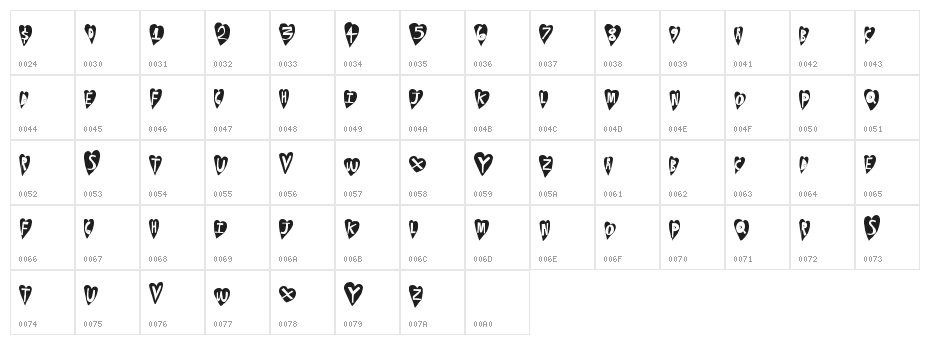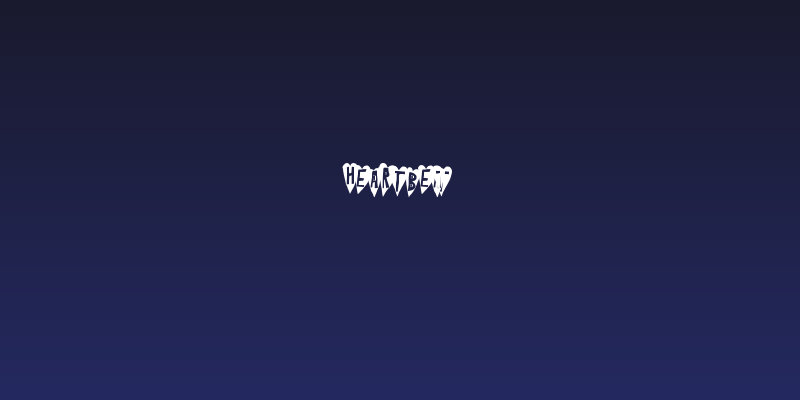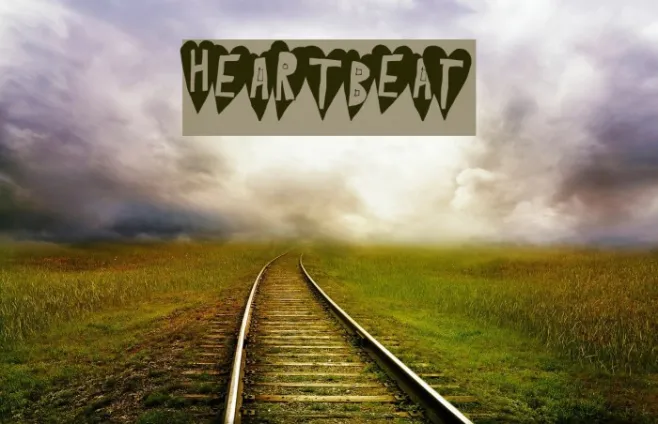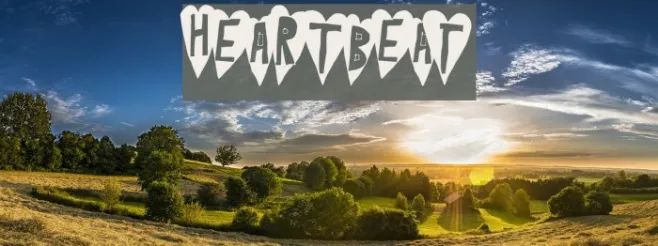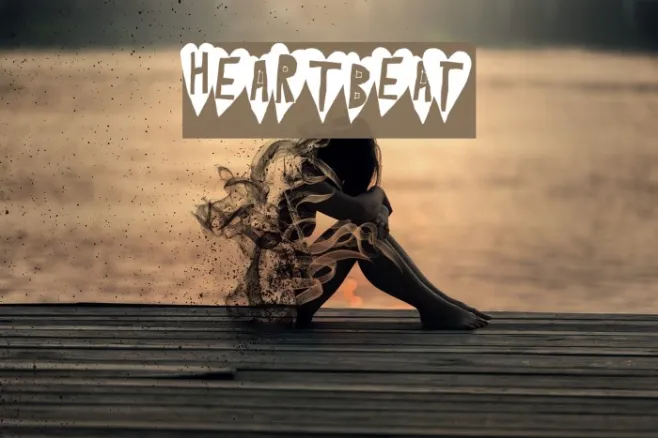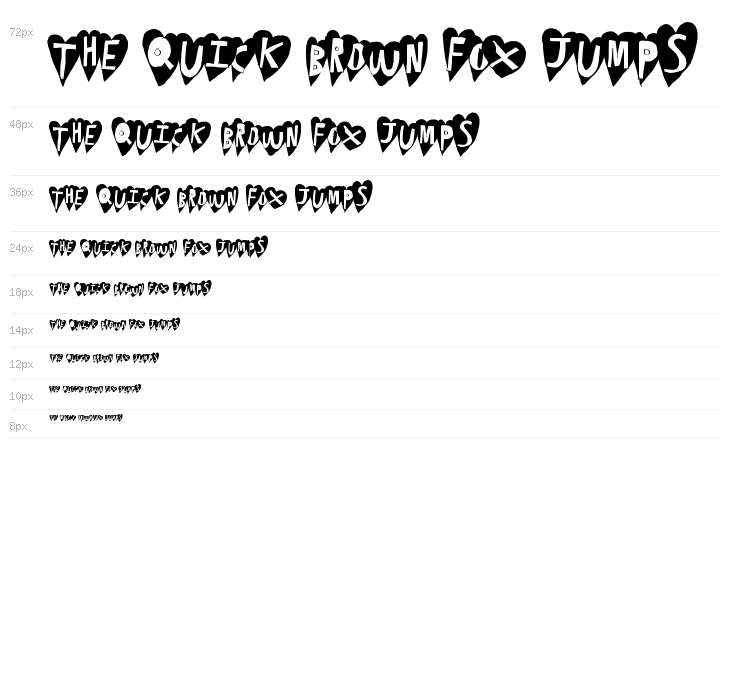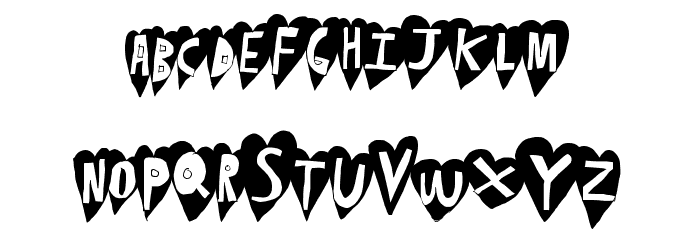
HeartBeat Font
HeartBeat Description
This playful and bold font features characters enclosed within heart shapes, creating a unique and eye-catching design. The letters and numbers are white against a black heart background, giving a striking contrast that enhances readability while maintaining a whimsical aesthetic. The font's style is distinctly decorative, making it ideal for projects that require a fun and lively touch. Each character is consistently styled, with a uniform heart shape that adds to the cohesive look. The special characters are also integrated within the heart shapes, maintaining the overall theme. This font is perfect for Valentine's Day projects, romantic-themed events, or any design that aims to convey love and affection in a bold, graphic manner.
| Proposed Projects | Ideal for Valentine's Day cards, wedding invitations, romantic event posters, and playful branding materials. |